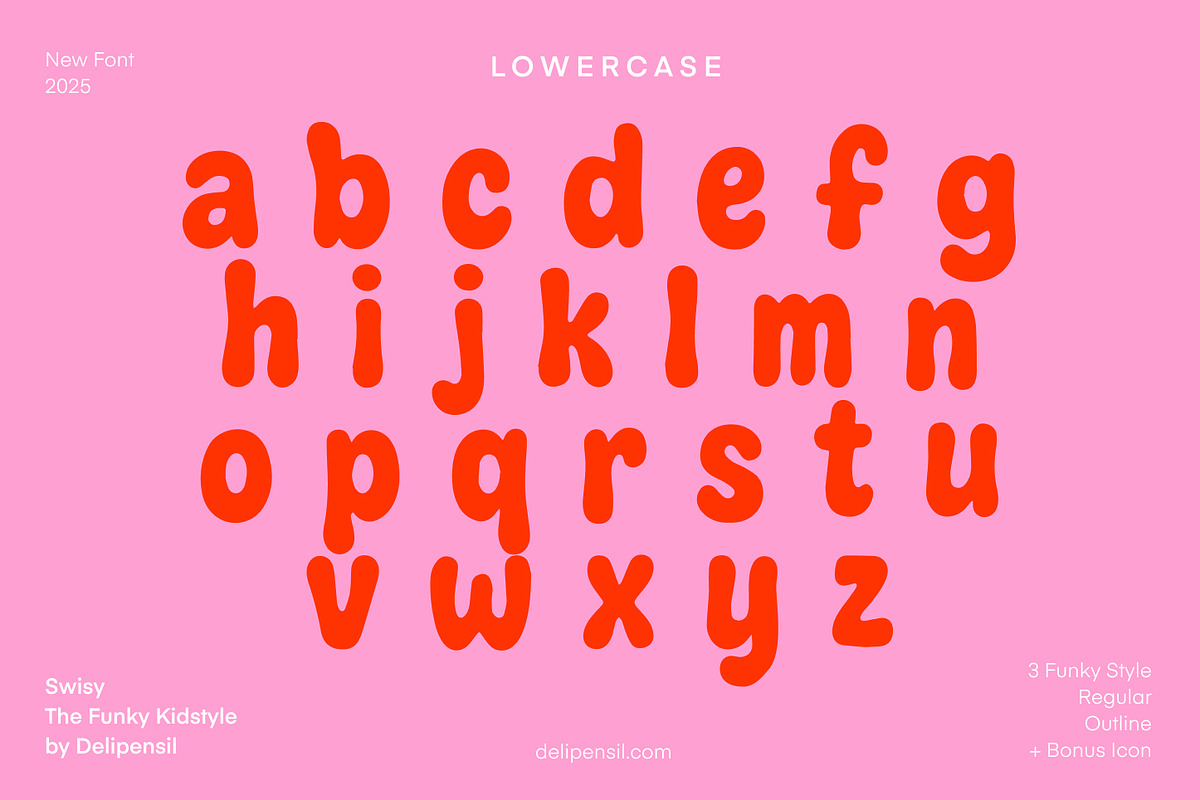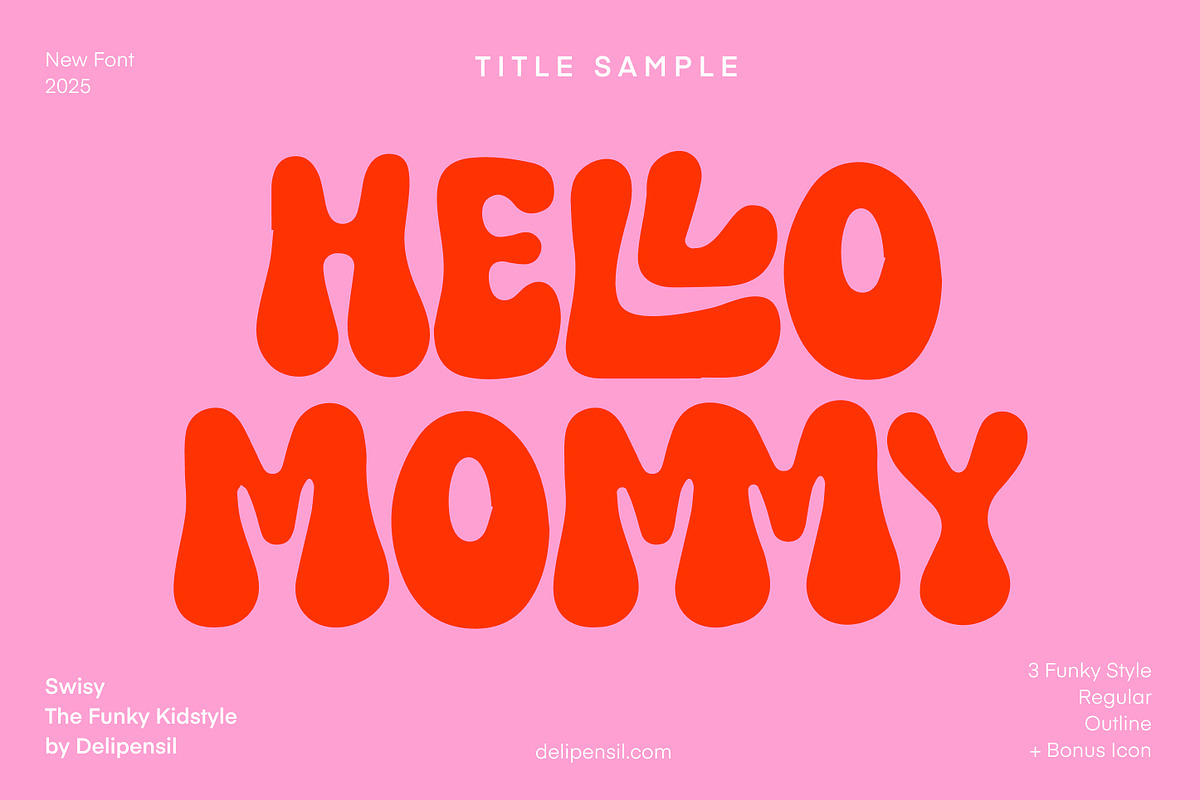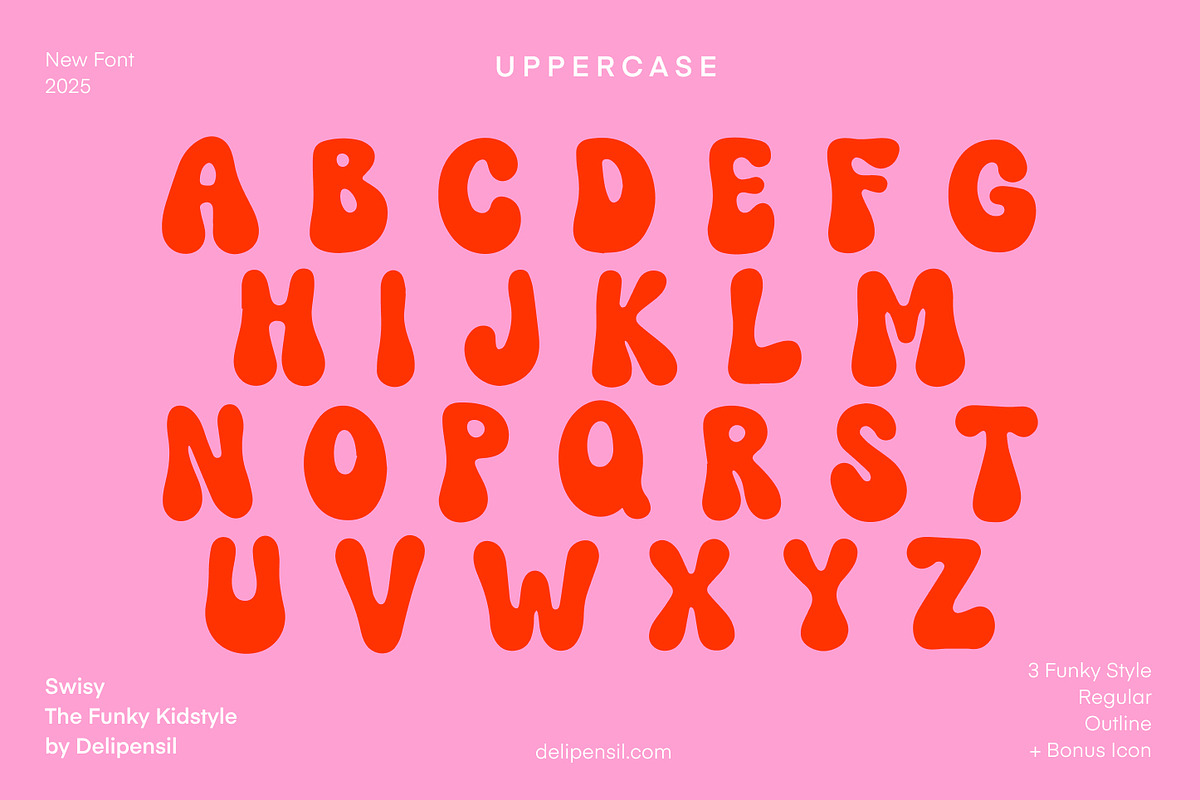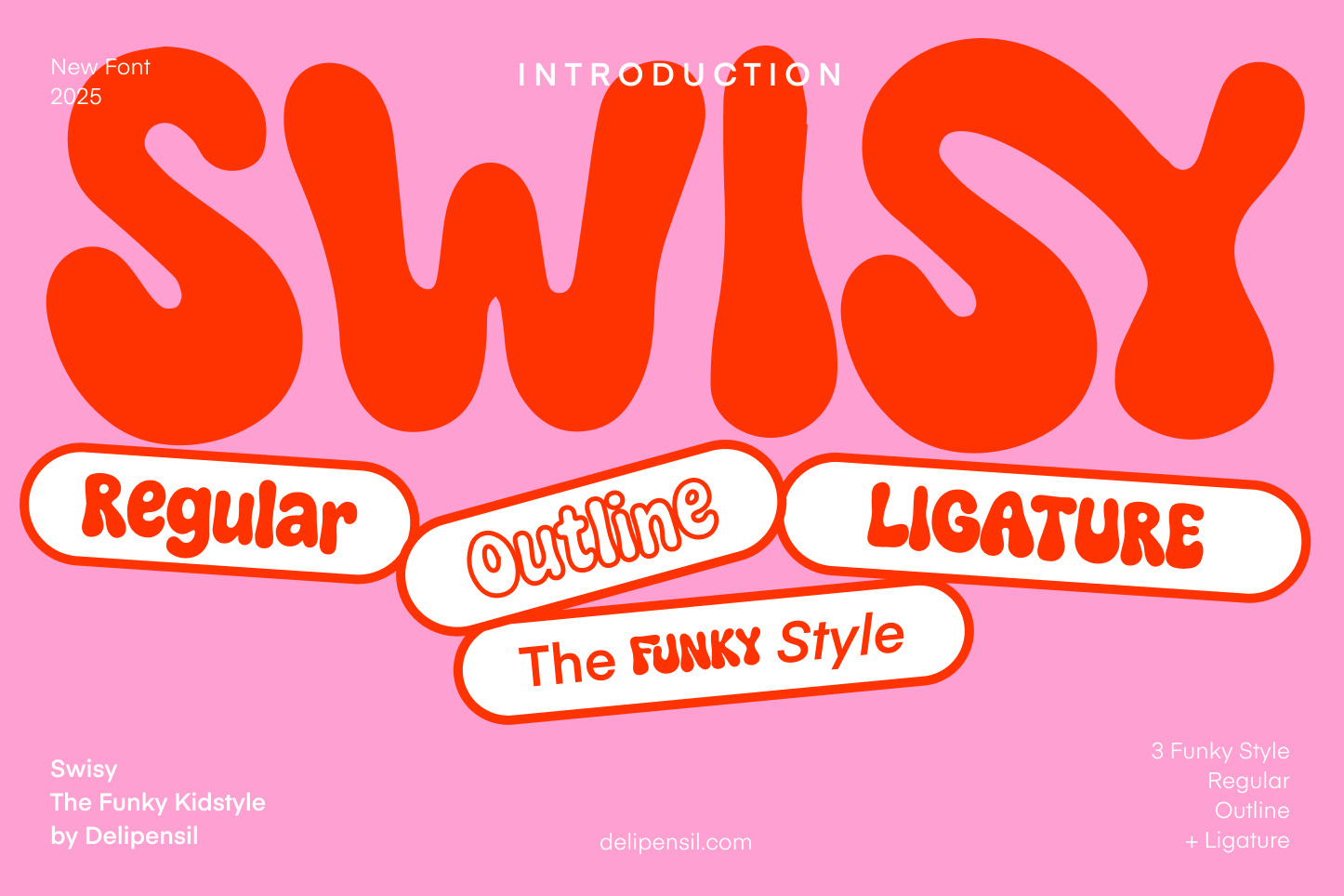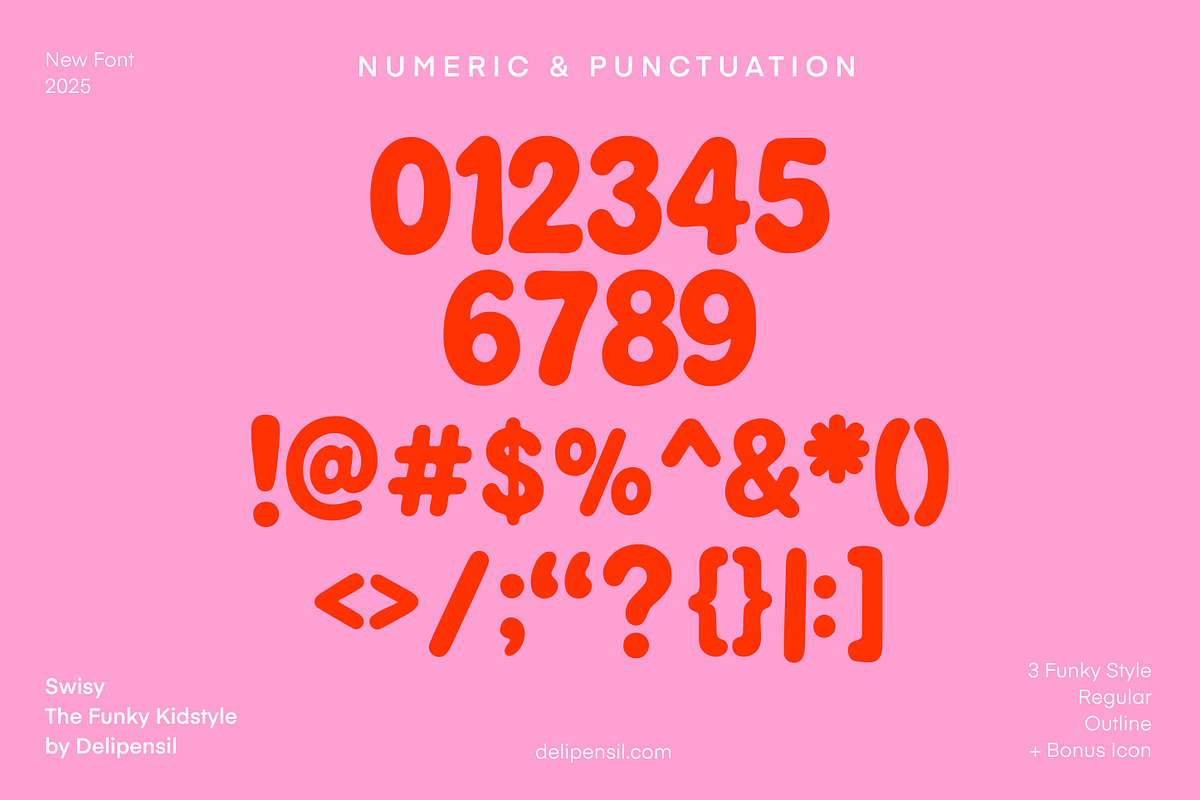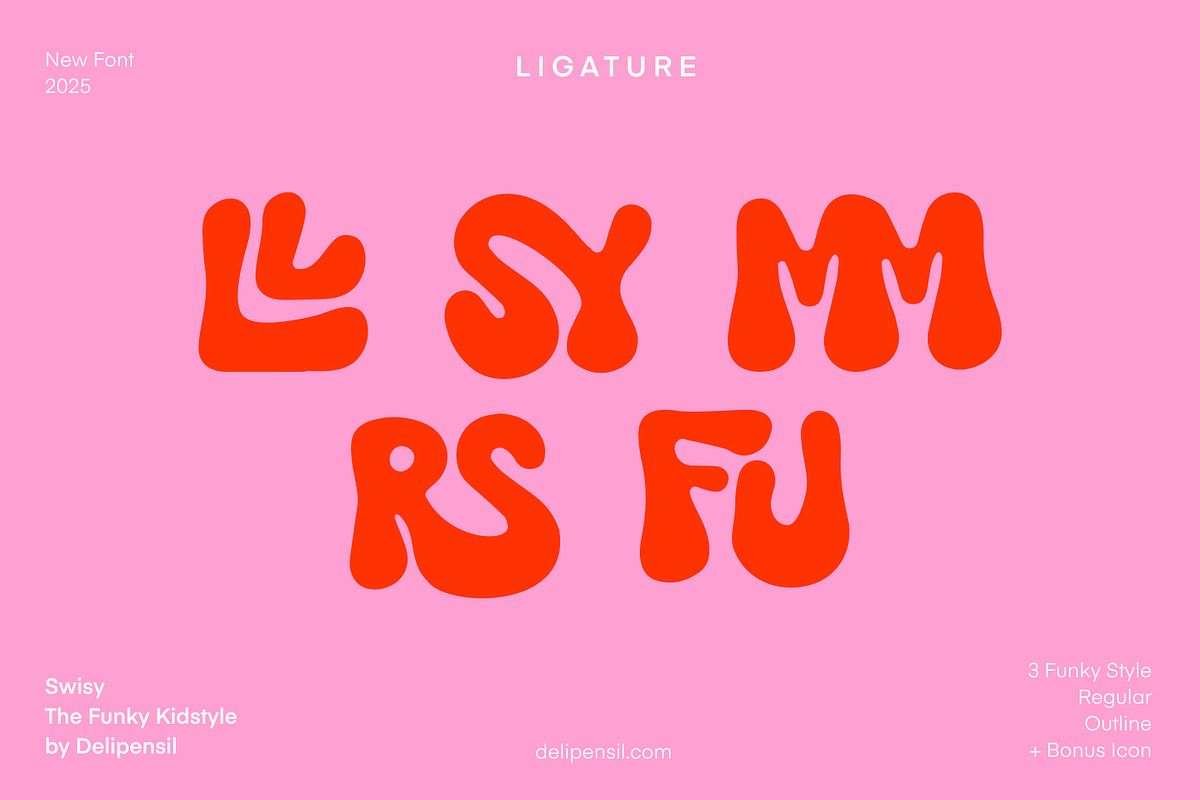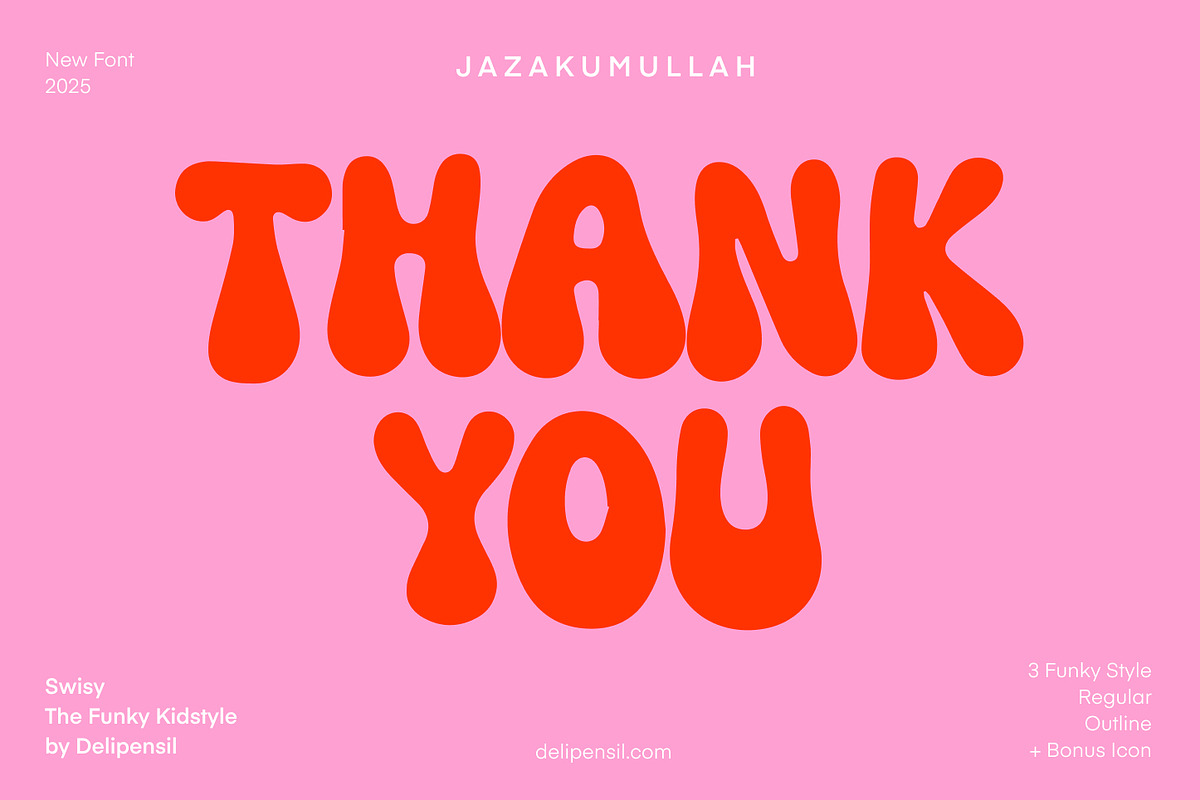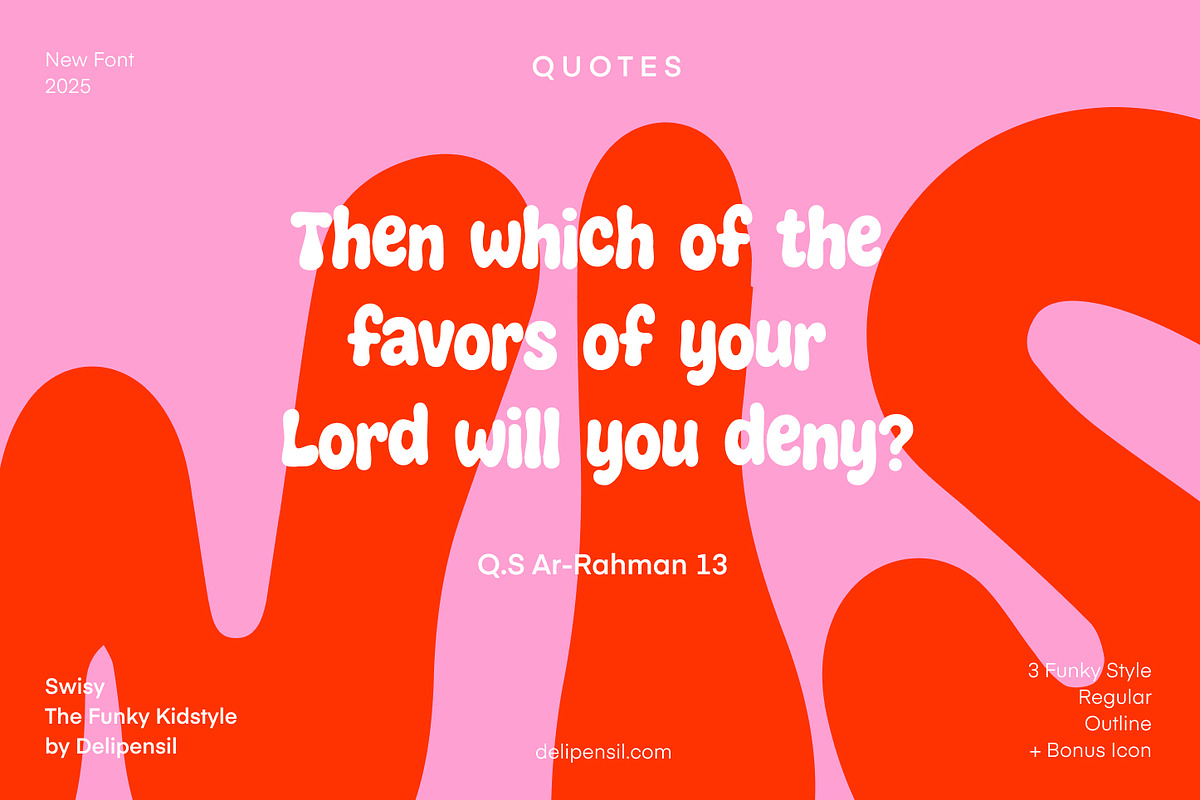
Swisy - Playful Rounded Sans Font
Bismillah, Introduction Swisy is a playful rounded sans font designed to bring joy and warmth to any project. Featuring soft curves, fun shapes, and a friendly character style, Swisy is perfect for kids’ designs, branding, quotes, stickers, product packaging, social media, and creative projects that need a cheerful and approachable vibe. This font includes unique ligatures, smooth letterflow, and clean readability, making it versatile for both display and small text. Whether you're designing baby products, cute logos, cartoon titles, or colorful posters, Swisy brings the charm effortlessly. What’s Included: - Swisy OTF - Swisy TTF - Swisy WOFF - Standard & extended Latin alphabet - Ligatures - Numbers & punctuation Perfect For: - Kids products - Cute logo designs - Branding & packaging - Social media posts - Stickers & labels - Greeting cards - Posters & quotes Features: - Playful rounded style - Smooth & friendly character shapes - Cute ligatures - Clean and modern look - Great readability Enjoy the shop :) @delipensil